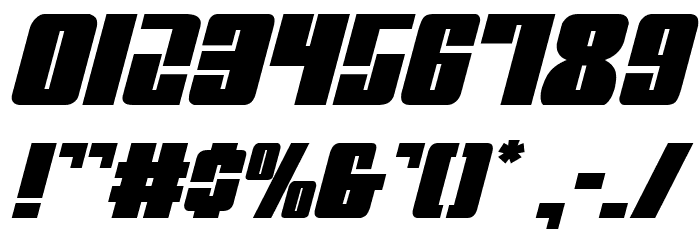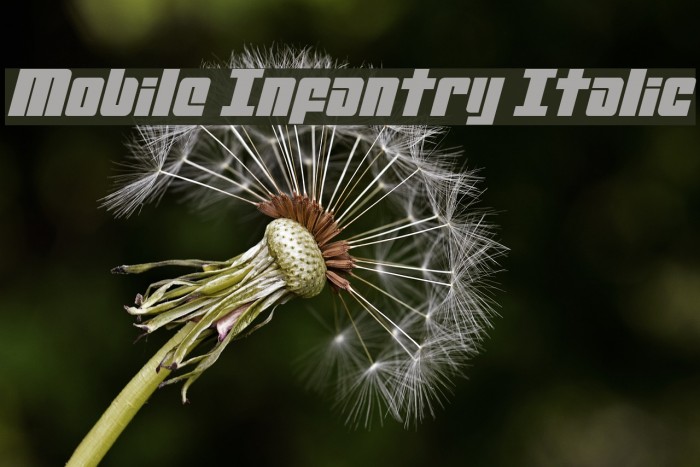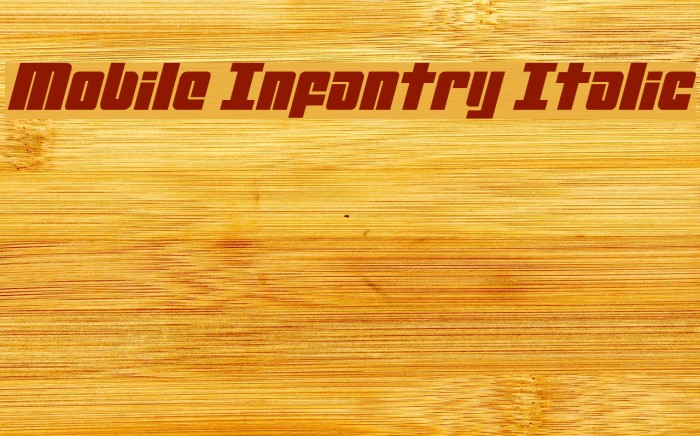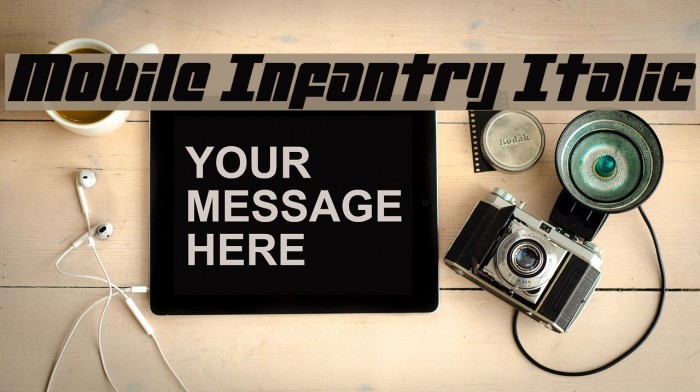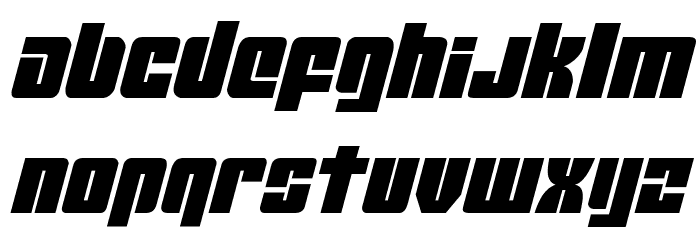
Mobile Infantry Italic Font
This font features a bold, italicized style with a futuristic and dynamic appearance. The characters are designed with a strong, angular structure, giving them a sense of movement and speed. The uppercase and lowercase letters maintain a consistent slant, enhancing the italic effect. The numbers and special characters follow the same design principles, ensuring uniformity across all glyphs. The font's thick strokes and sharp edges make it highly legible, even at smaller sizes, while the italic slant adds a touch of elegance and flair.
• Proposed Projects: Ideal for sci-fi themed projects, video game titles, sports branding, and dynamic posters.
• Category: Decorative/Display
• Overall Style: Modern
• Use Case: Headlines, Logos, Posters